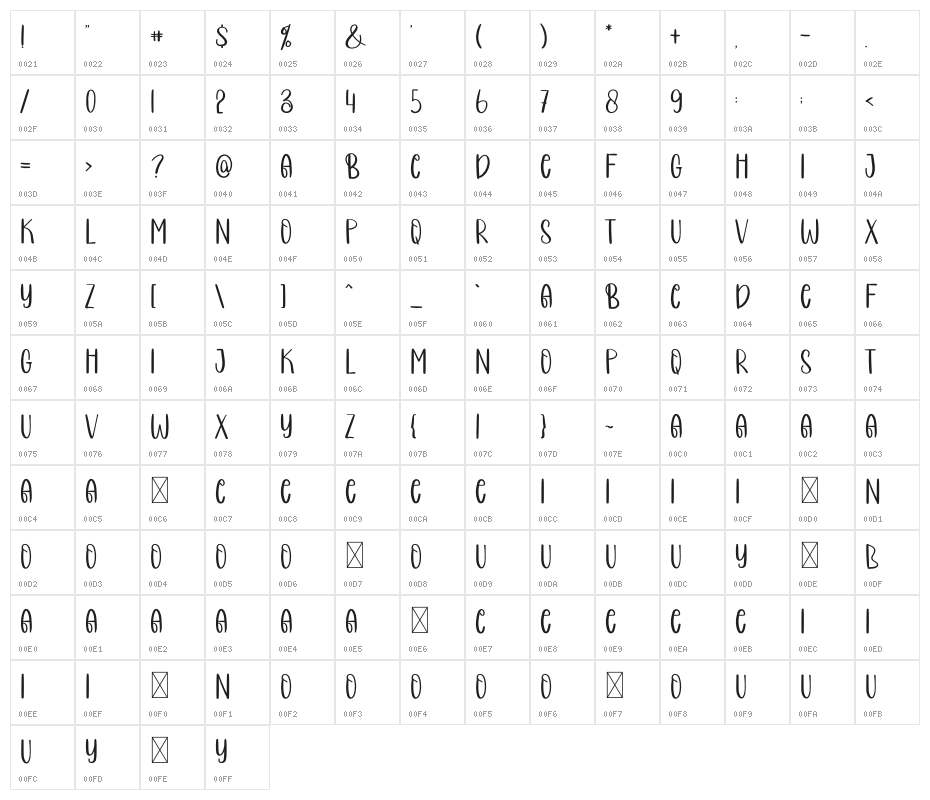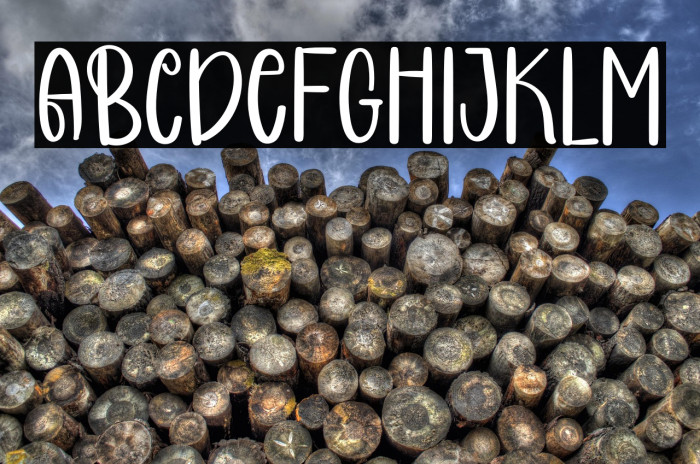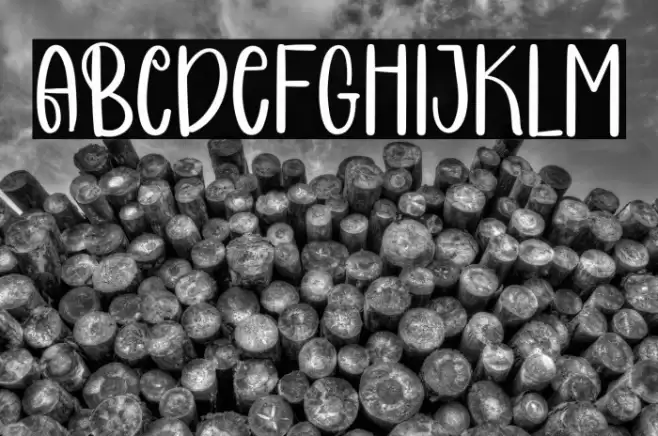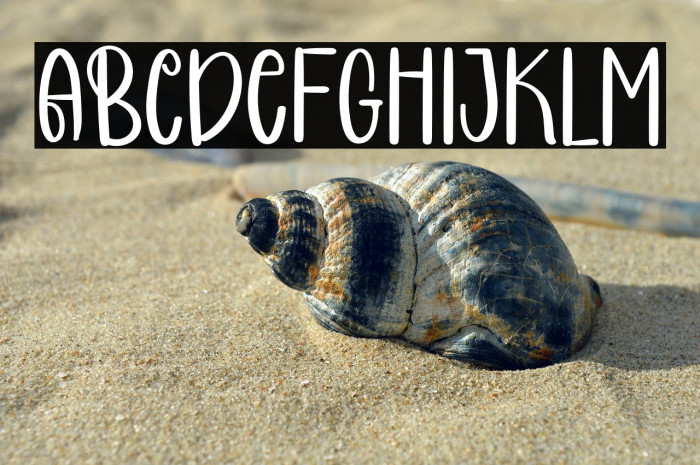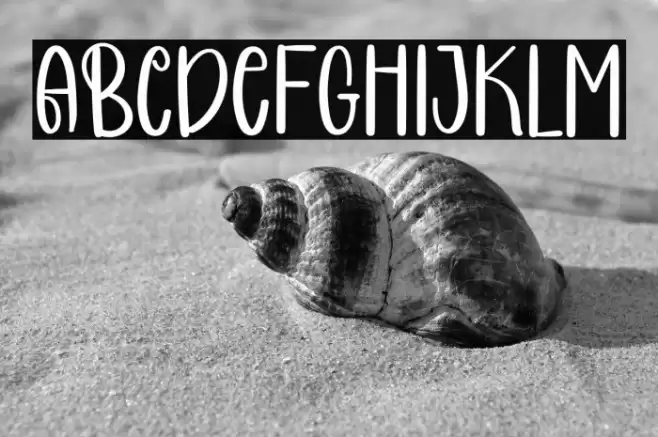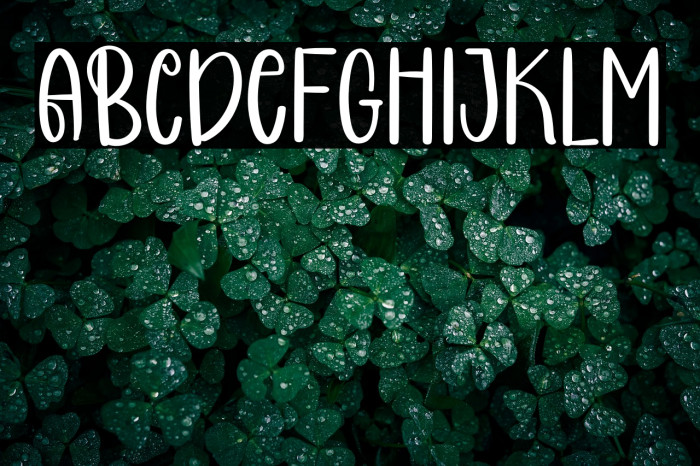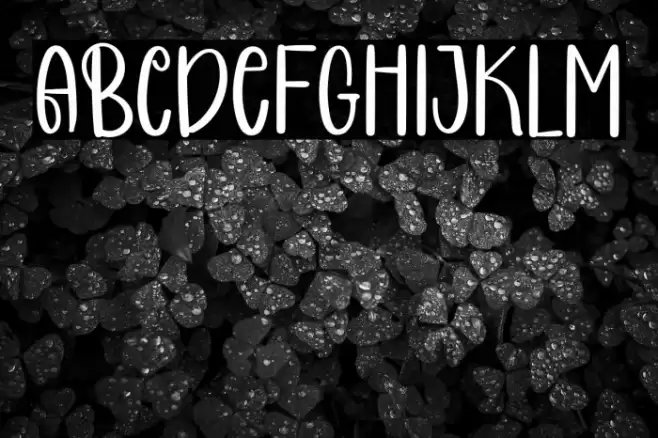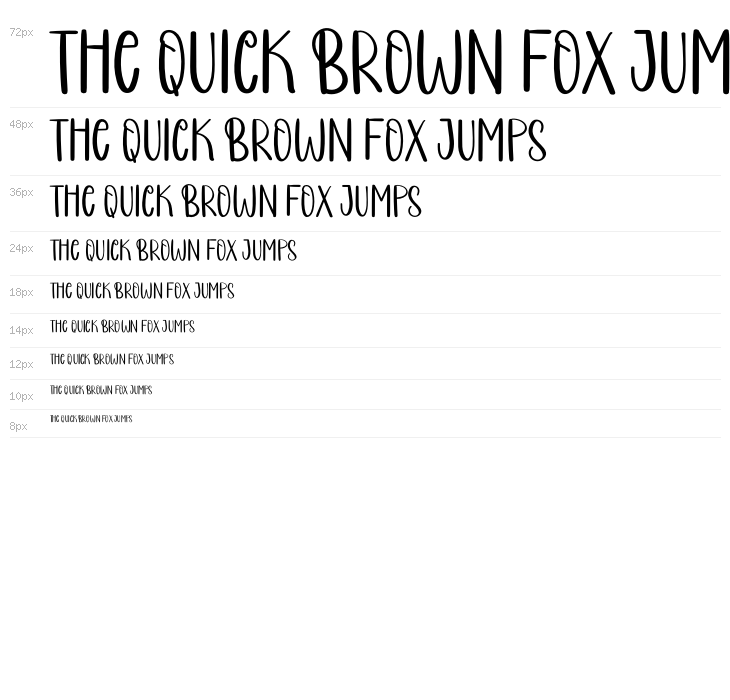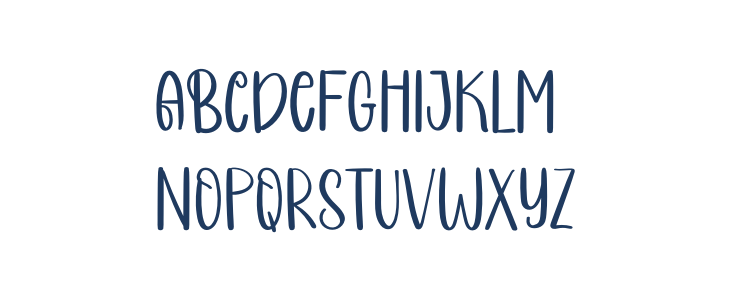
COCONUT CAKE Font
COCONUT CAKE Description
This playful and modern font features a handwritten style with a smooth, flowing appearance. The letters are slightly elongated and have a consistent stroke width, giving it a casual yet refined look. The uppercase and lowercase characters maintain a harmonious balance, while the numerals and special characters complement the overall aesthetic. Its rounded edges and friendly demeanor make it suitable for a variety of creative projects. The font's charm lies in its simplicity and versatility, making it a great choice for both digital and print media.